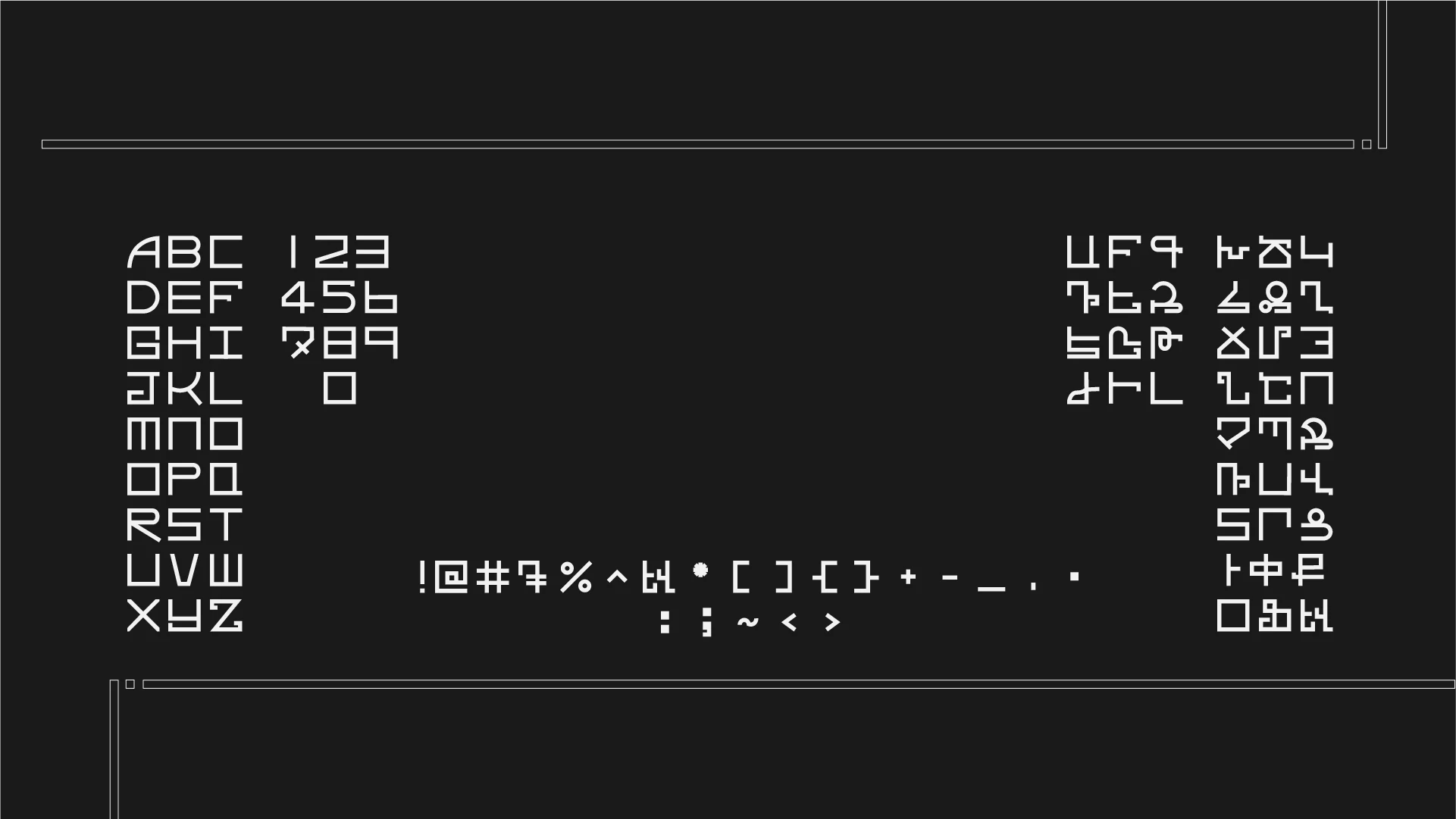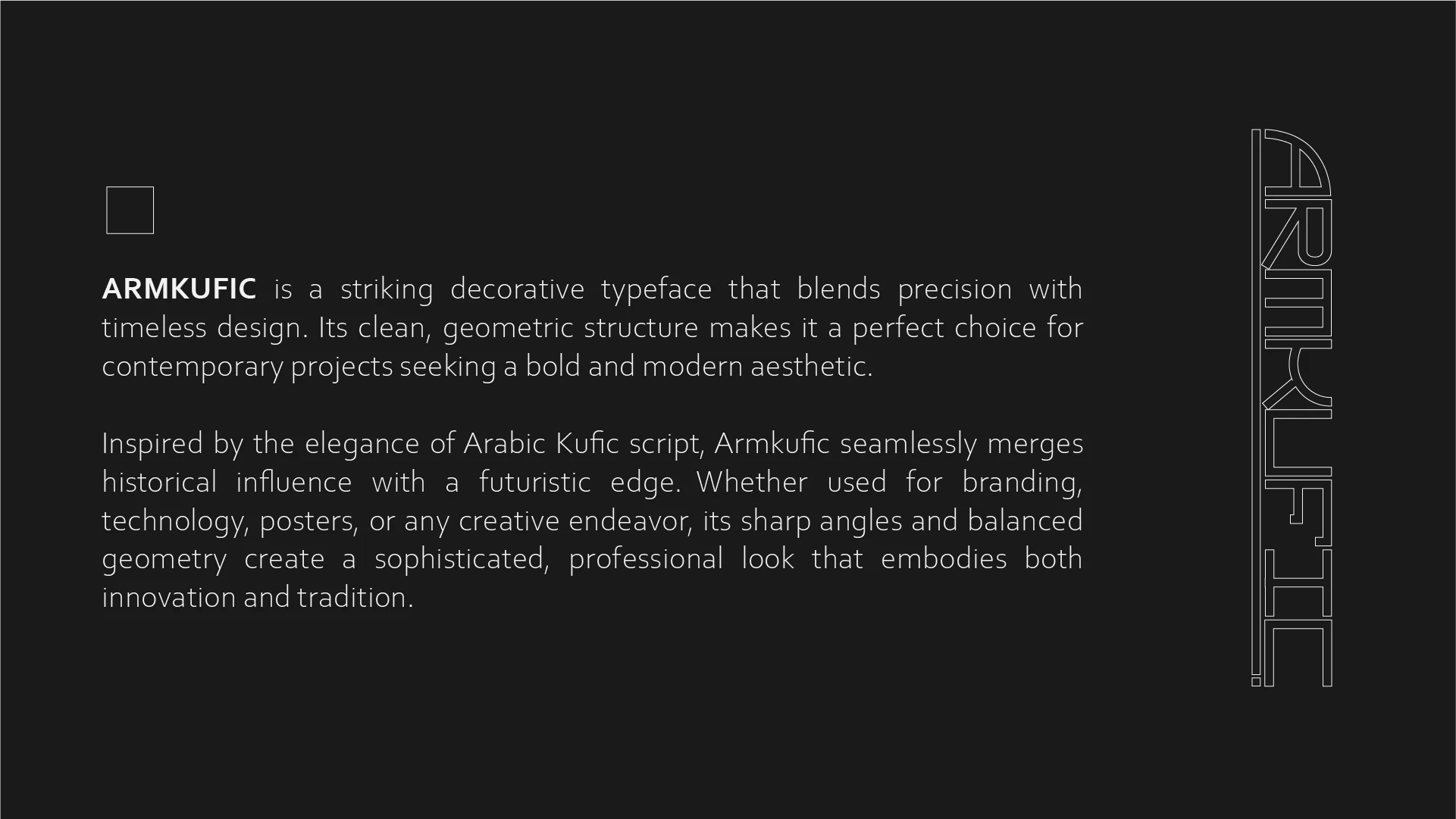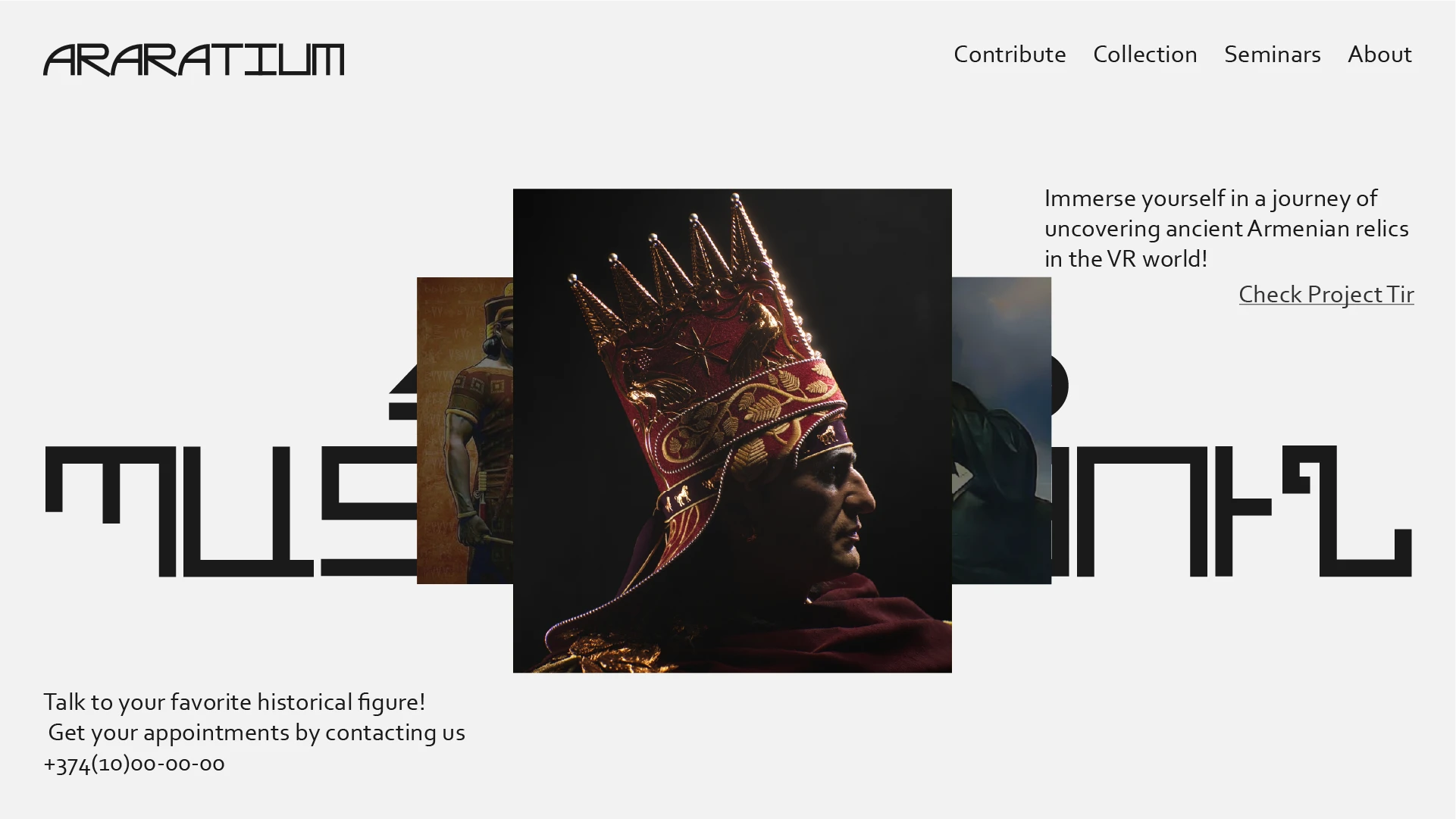
Karen Vartanyans
ArmKufic is an Armenian font inspired by the Kufic script, used in Medieval Arabian Architecture. Its look, albeit historical also conveys futurism.